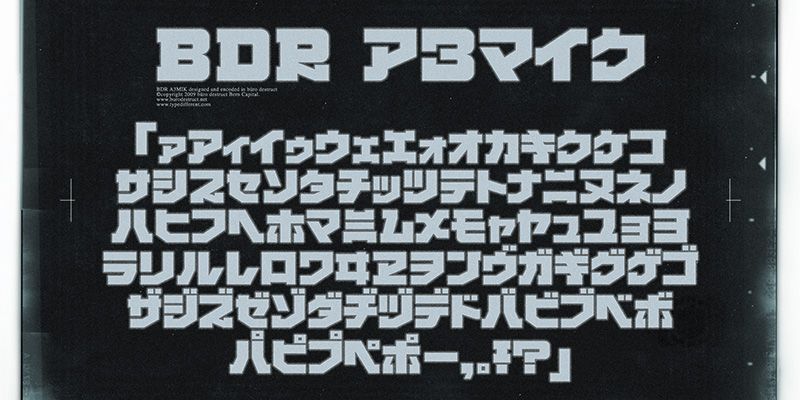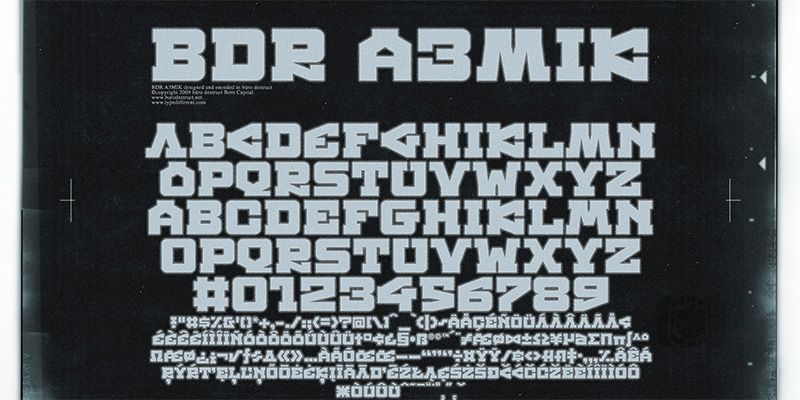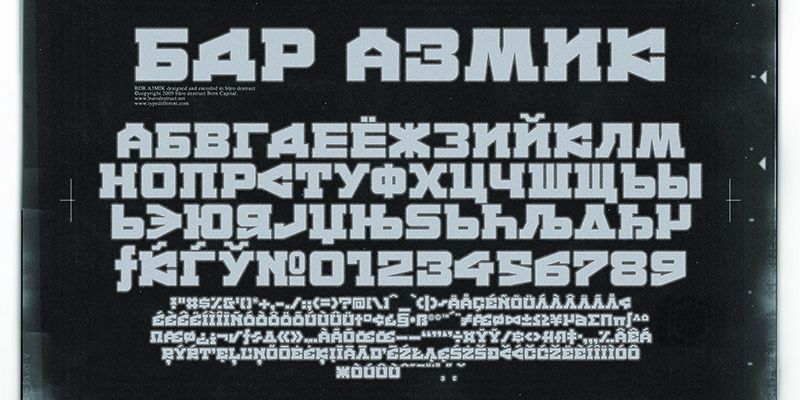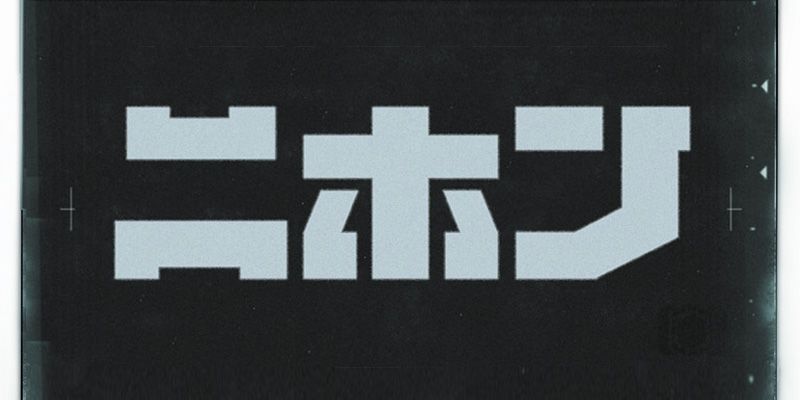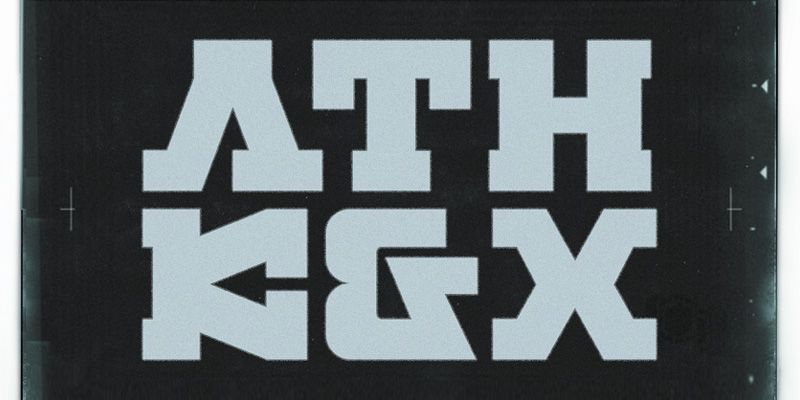
BDR A3MIK is a constructive, futuristic, uppercase alphabet with alternatives including European/Eastern European, Russian Cyrillic and Japanese Katakana characters. Designed by Lopetz in 2009.